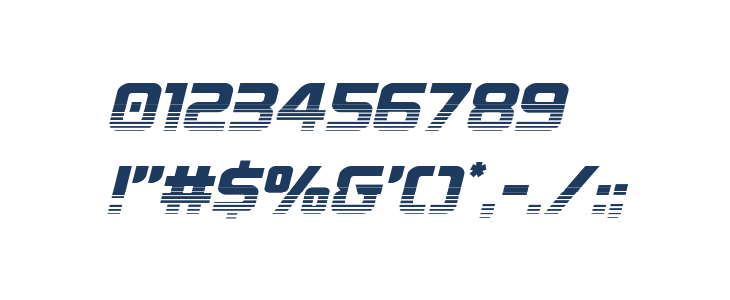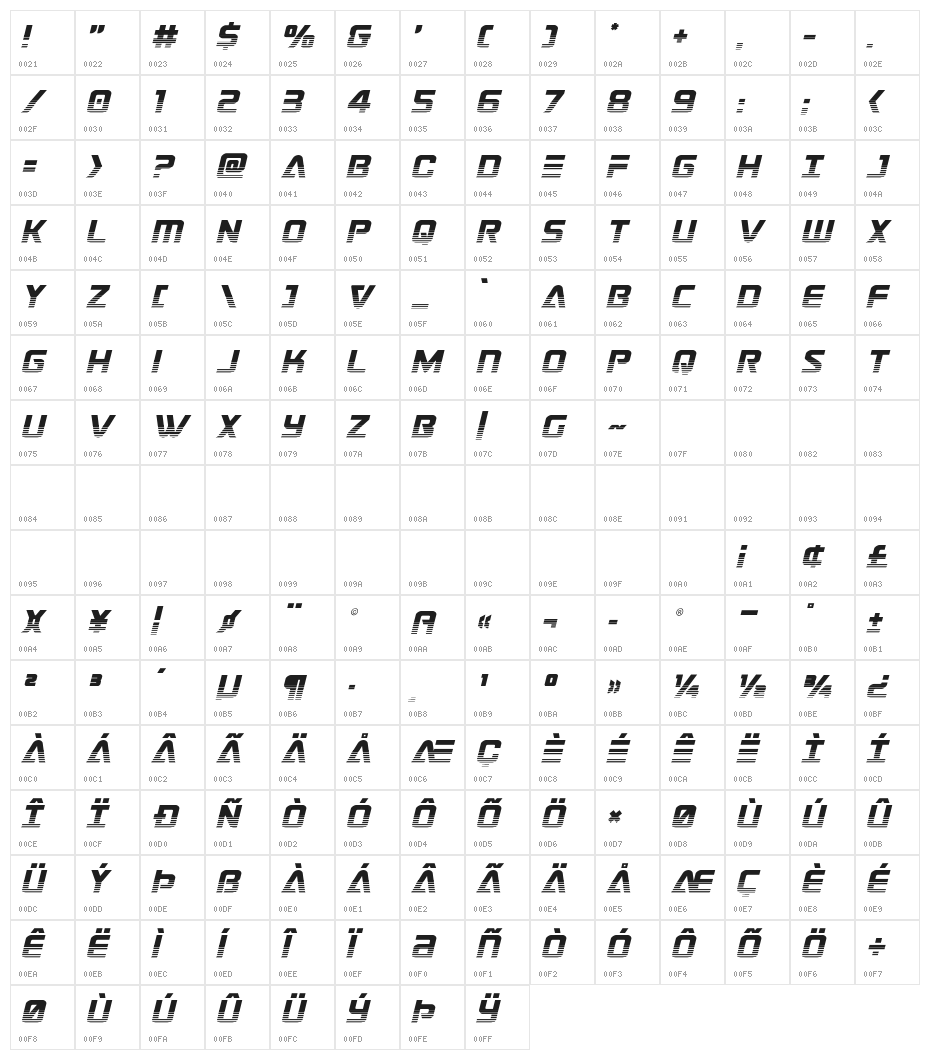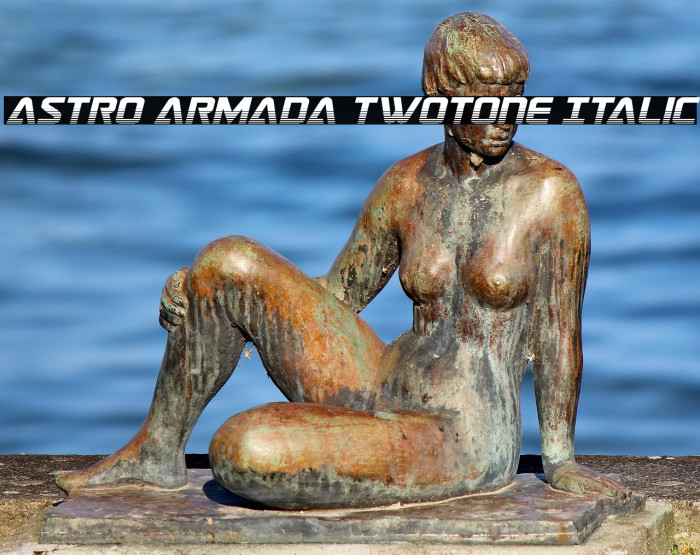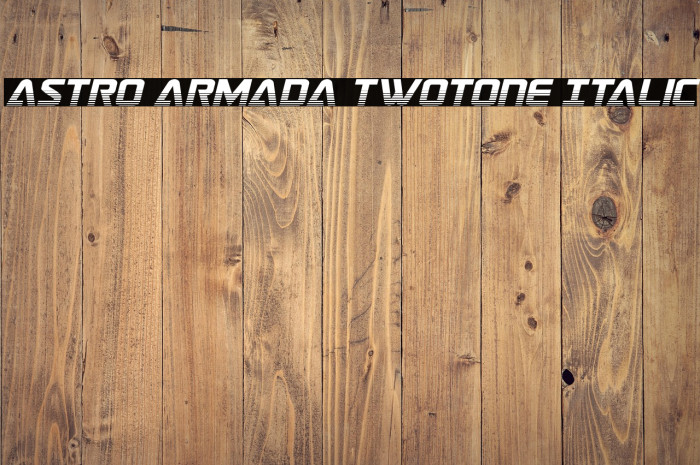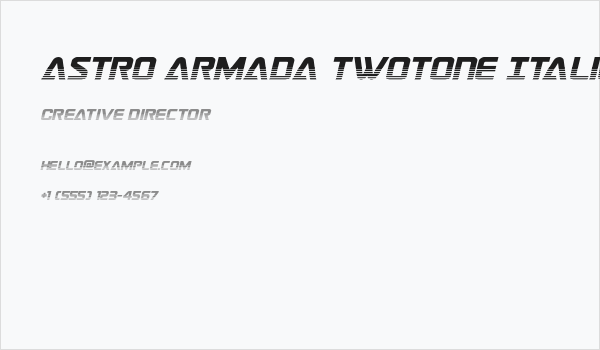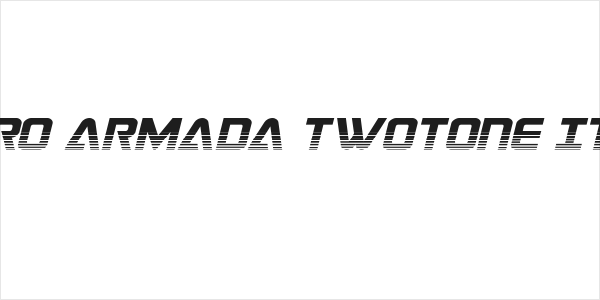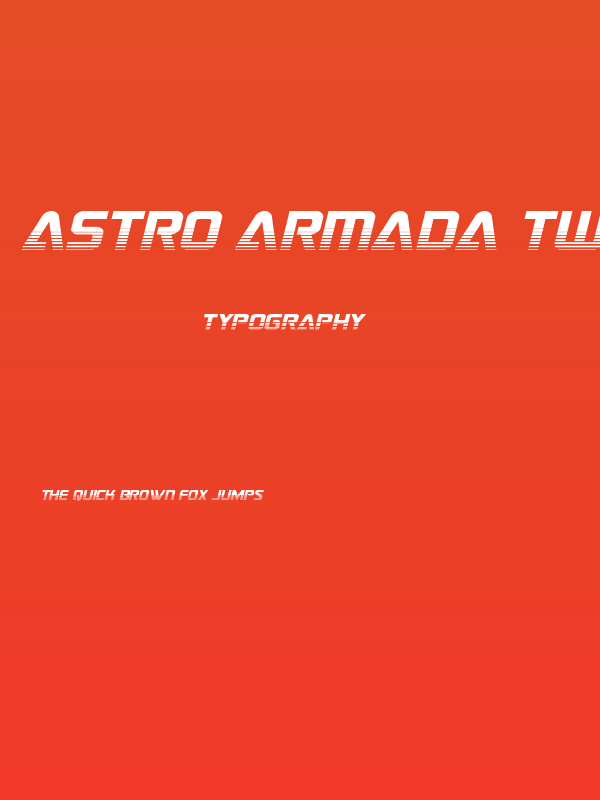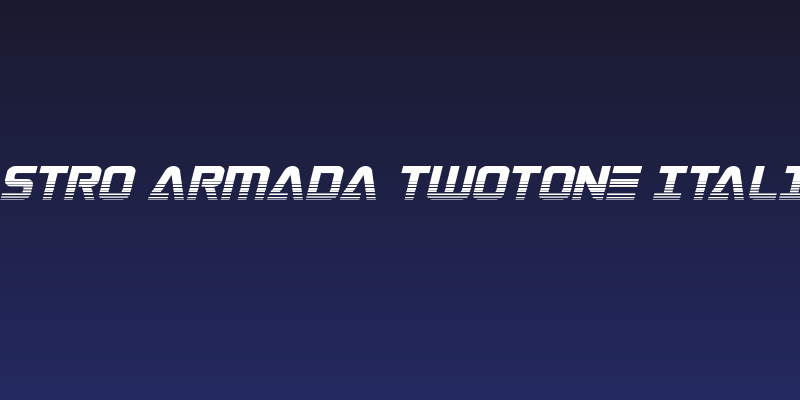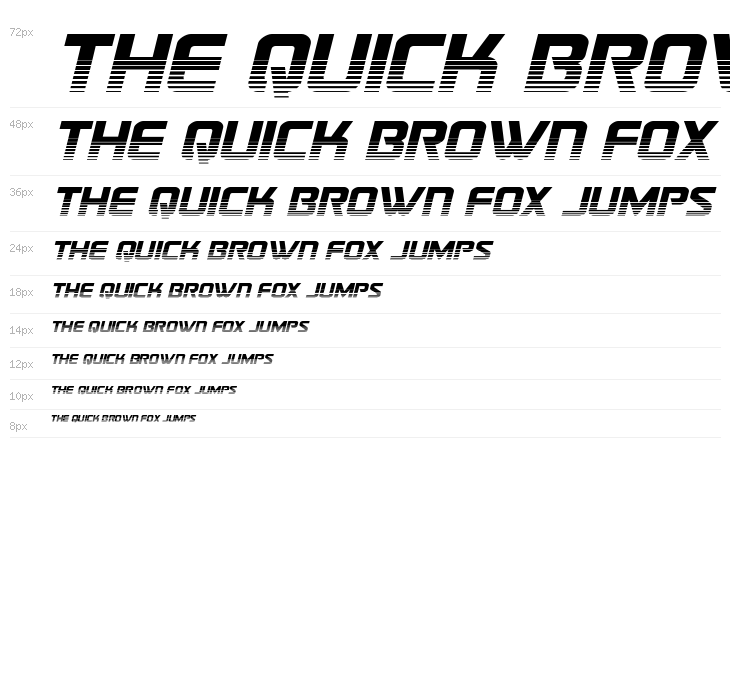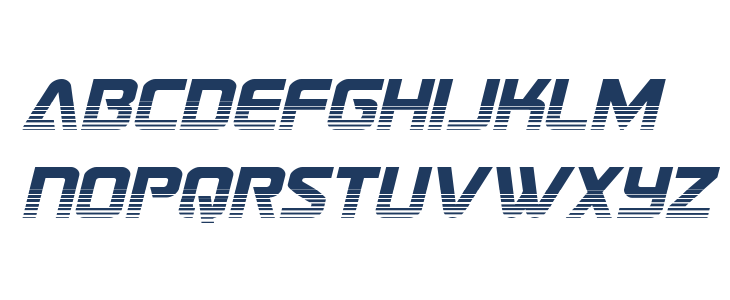
Astro Armada Twotone Italic Font
Astro Armada Twotone Italic Description
This font features a futuristic and dynamic design with a two-tone effect that gives it a sense of movement and speed. The italicized letters are sharply angled, enhancing the forward motion impression. The characters are bold and wide, with a unique striped pattern that adds depth and visual interest. The font's style is reminiscent of science fiction and technology themes, making it ideal for projects that require a modern and edgy look. The uppercase and lowercase letters maintain consistency in their design, while the numbers and special characters complement the overall aesthetic.
| Proposed Projects | Ideal for sci-fi movie posters, tech branding, video game titles, and futuristic event flyers. |